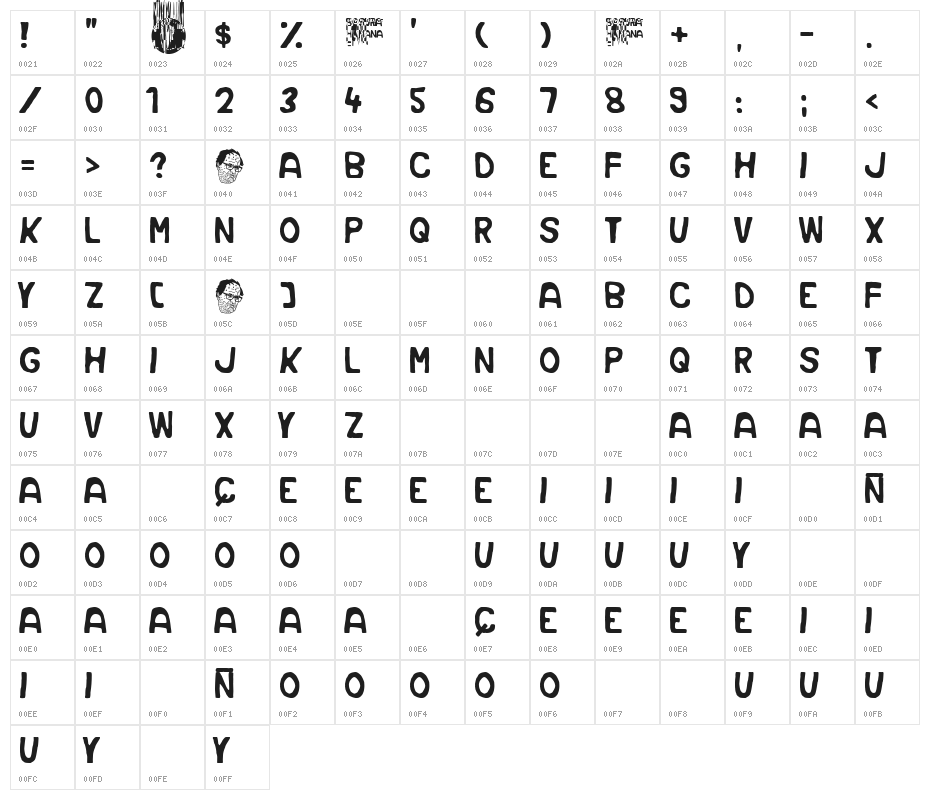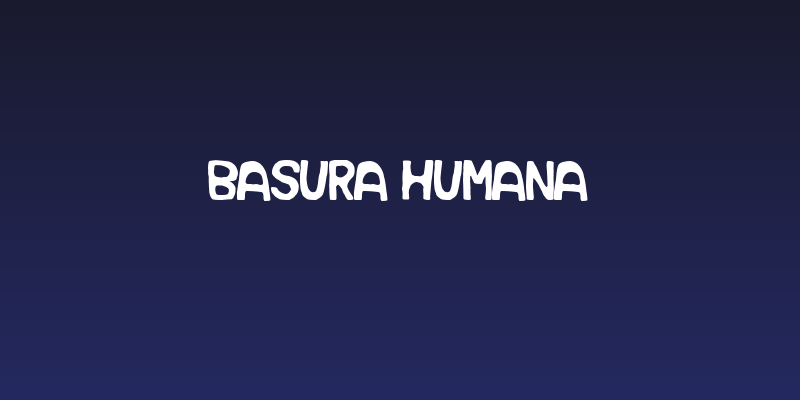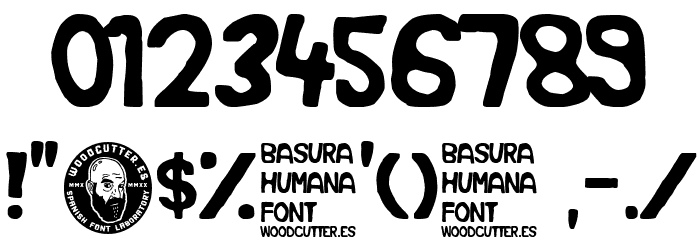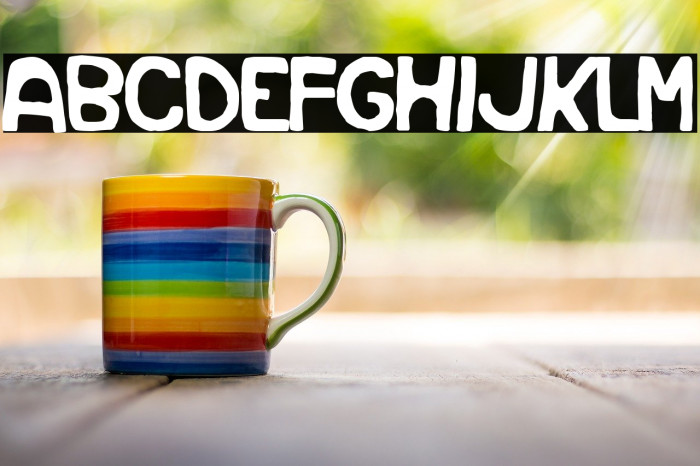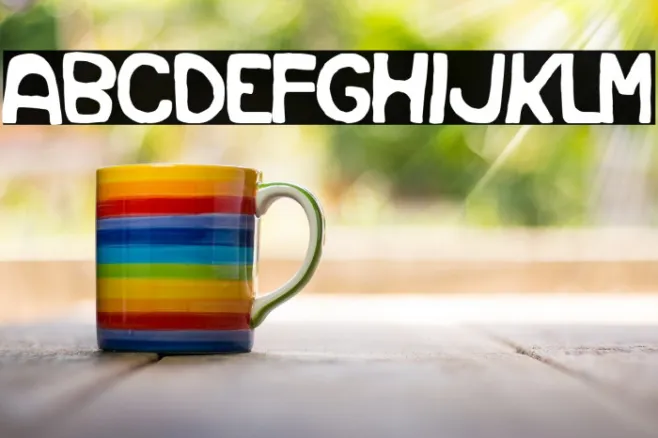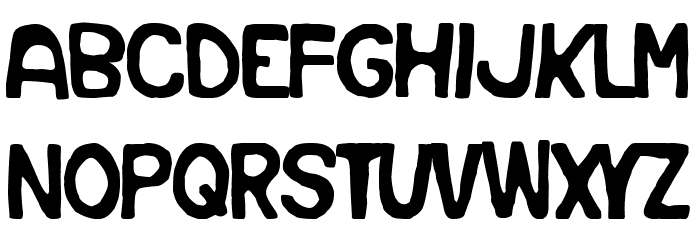
Basura Humana Font
Basura Humana Description
This font features a bold, hand-drawn style with a playful and slightly irregular appearance. The characters are thick and rounded, giving them a friendly and approachable feel. The uppercase and lowercase letters maintain a consistent style, with a slight wobble that adds to the casual, informal aesthetic. The numbers and special characters follow the same design principles, ensuring uniformity across all glyphs. This font's unique style makes it stand out, perfect for creative projects that require a touch of personality and flair.
| Proposed Projects | Ideal for posters, children's books, comic strips, and playful branding projects. |